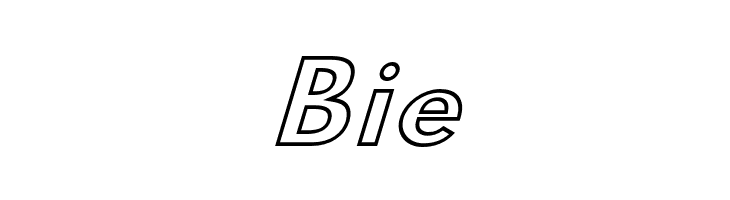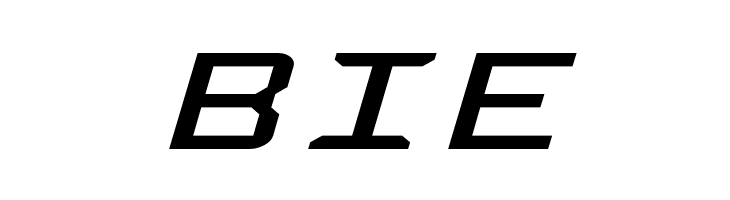
A bold, super extended oblique font with a dynamic and energetic style.
A bold, super extended sans-serif font with a modern and impactful style.
A modern, outlined oblique font with extended width and a sleek, dynamic style.
A bold, super extended, and oblique font with a modern and dynamic style.
A bold, extended font with a modern and geometric style.
A modern, outlined font with geometric precision and a sleek, sophisticated style.
A modern, outlined font with geometric shapes and extended width.
A modern, geometric oblique font with a ghost outline and super-extended width.
A bold, extended, and oblique font with a modern and dynamic style.
A modern, italic, geometric font with extended characters and a technical feel.